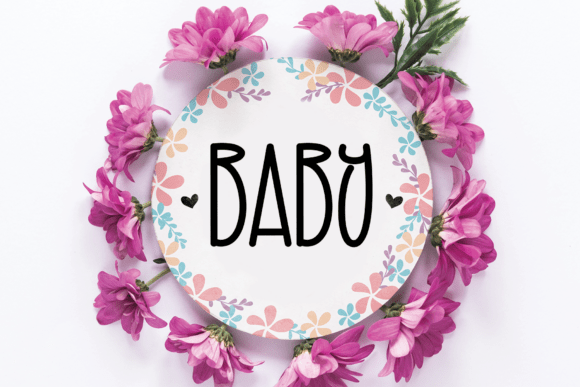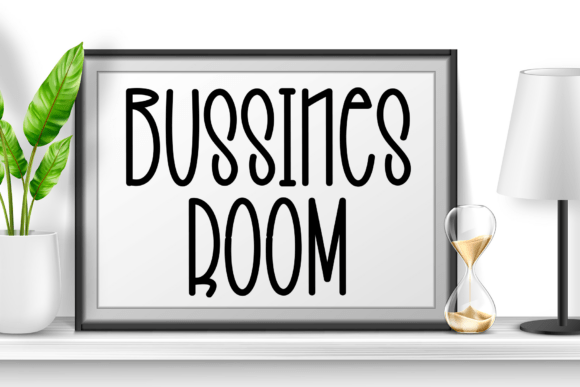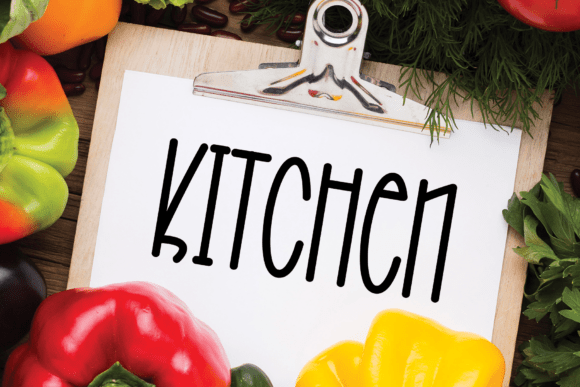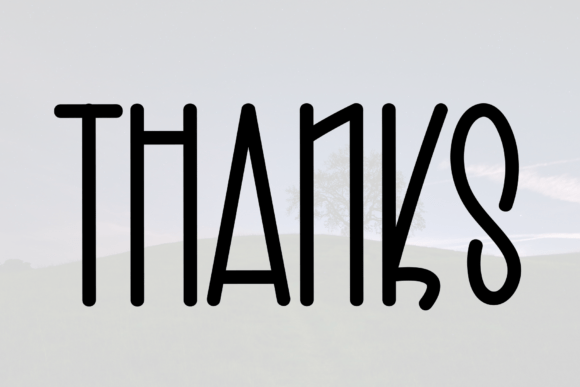
Introduction to Cloud Night Font
Have you ever found yourself in the midst of a design project, struggling to convey the perfect balance of elegance and whimsy? Perhaps you’re crafting a wedding invitation, designing a logo for a boutique, or even creating a social media campaign for a new product launch. Whatever your creative endeavor, I’m willing to bet that you’re on the hunt for that one special font that will elevate your design from ordinary to extraordinary.
Enter the enchanting Cloud Night Font – a sweet and beautiful handwritten font that’s sure to capture the essence of your design project. With its unique characters that dance along the baseline, Cloud Night Font is the perfect addition to any creative project, adding a cozy accent that’s sure to leave a lasting impression.
Key Features of Cloud Night Font
- High-quality design resource with a unique, dreamy aesthetic, perfect for creative projects.
- Perfect for use in creative projects, such as book covers, posters, and digital art, where a unique and atmospheric font is desired.
Honest Review: Cloud Night Font
I recently had the chance to work with the Cloud Night Font, and I must say it’s been a delightful experience. The font is available for free download, which is always a plus. One of the standout features of this font is its transparent background, which makes it perfect for designers looking to create a clean and minimalist design. ✨
Another aspect I appreciate is its high quality. The font is crisp and clear, making it suitable for a variety of creative projects. Whether you’re working on a logo, brochure, or website, Cloud Night Font is a great choice.
- Suitable for various creative projects, including logos, brochures, and websites
- The font may not be suitable for designs that require bold, thick lines
- Some users may find the font too minimalist for their taste
Overall, I’m impressed with Cloud Night Font. It’s a solid design resource that can add a touch of sophistication to your creative project. While it may have some limitations, I believe it’s a great choice for designers looking for a clean and minimalist font.
Cloud Night Font
For optimal results, use the Cloud Night Font in conjunction with other high-quality design elements. Experiment with different font sizes, colors, and styles to create a unique and eye-catching design.
The Cloud Night Font is ideal for use in creative projects such as logos, brochures, and social media graphics. Its transparent background and high-quality design make it perfect for use in a variety of applications.